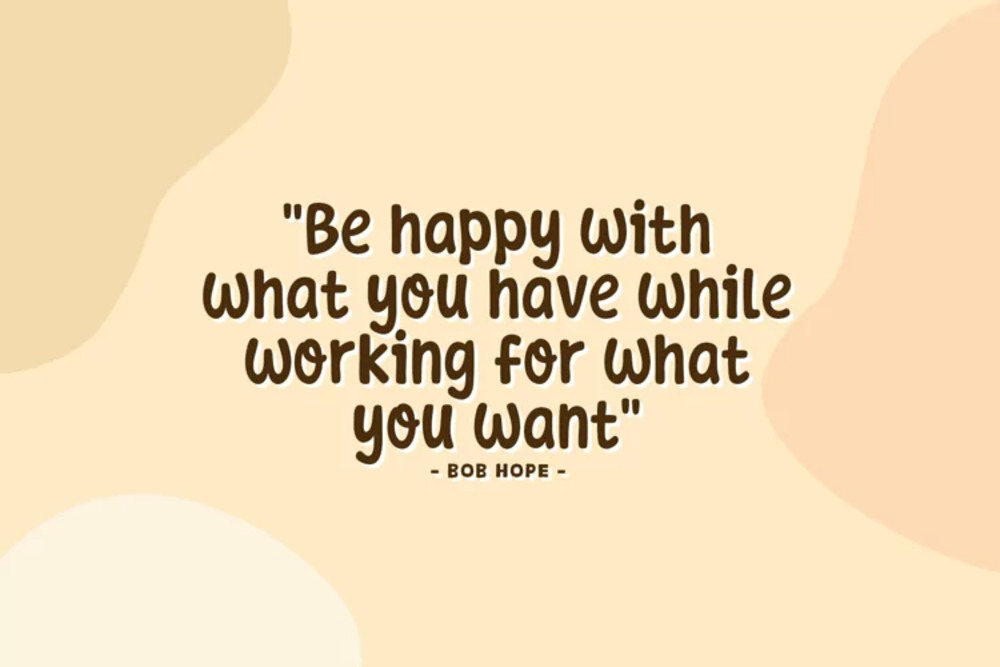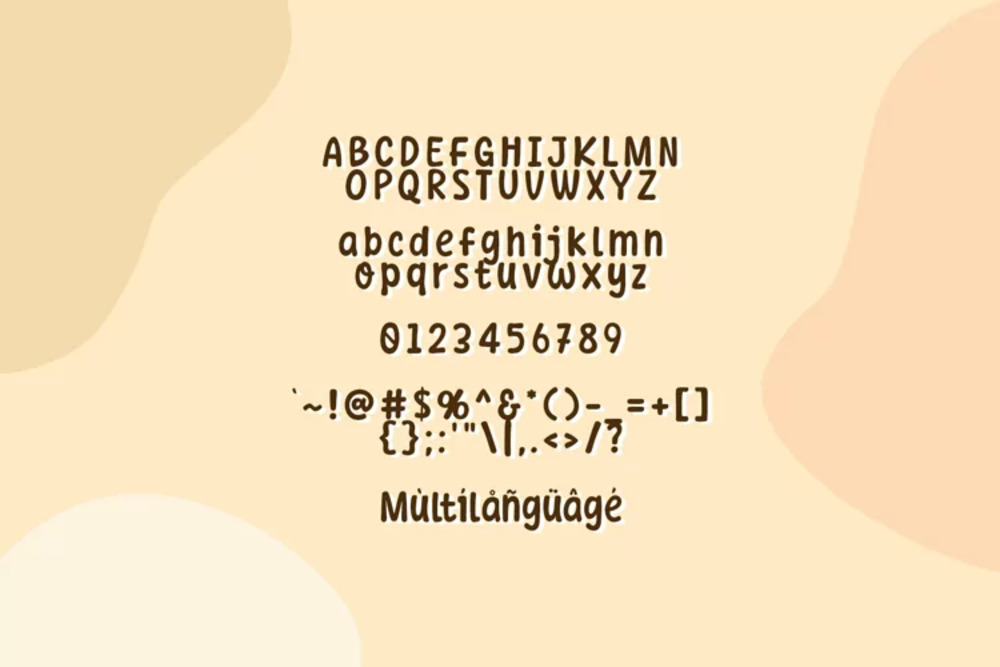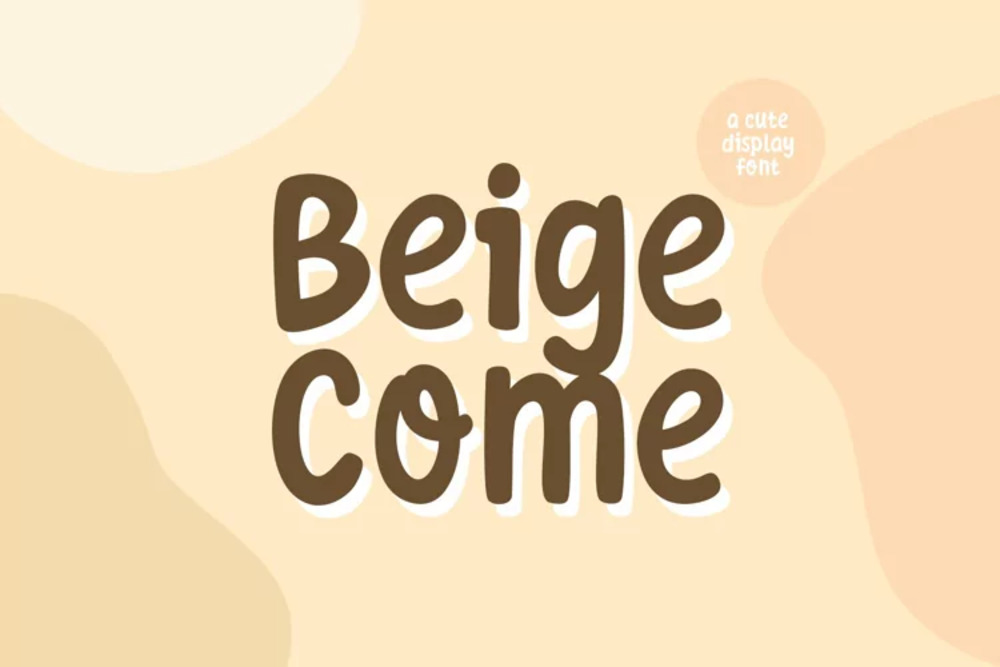
Beige Come Font
Beige Come is a smooth and friendly script font with a casual, handwritten feel. Its flowing letterforms and slightly bouncy baseline create a sense of warmth and approachability. Perfect for branding, social media, invitations, and projects that need a personal, handcrafted touch. Beige Come adds a touch of effortless elegance and welcoming charm.